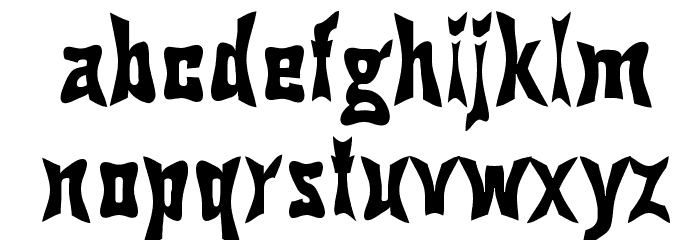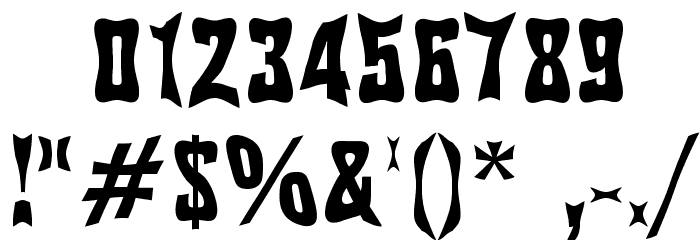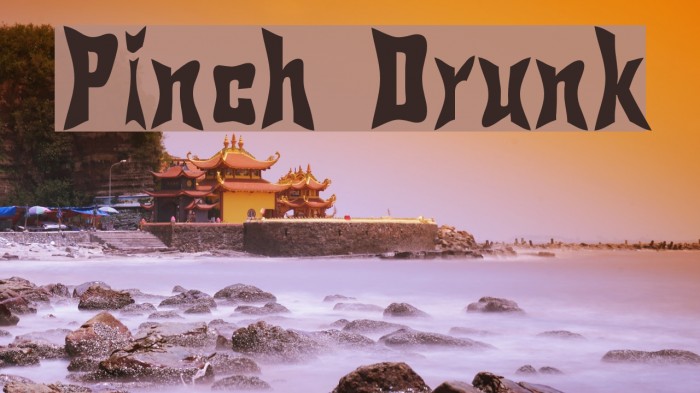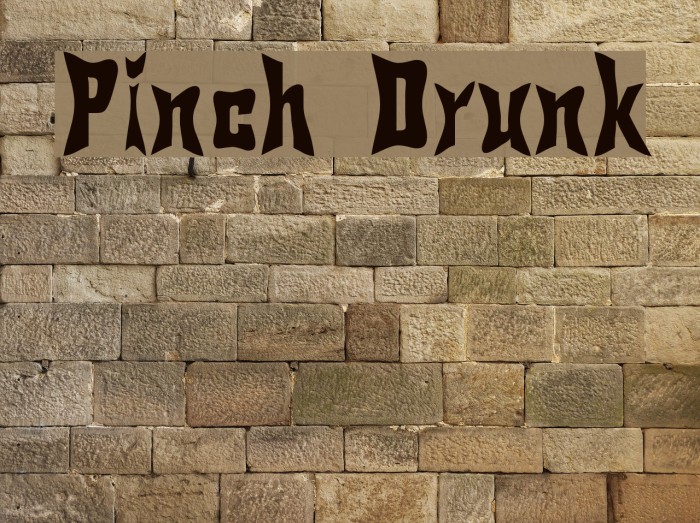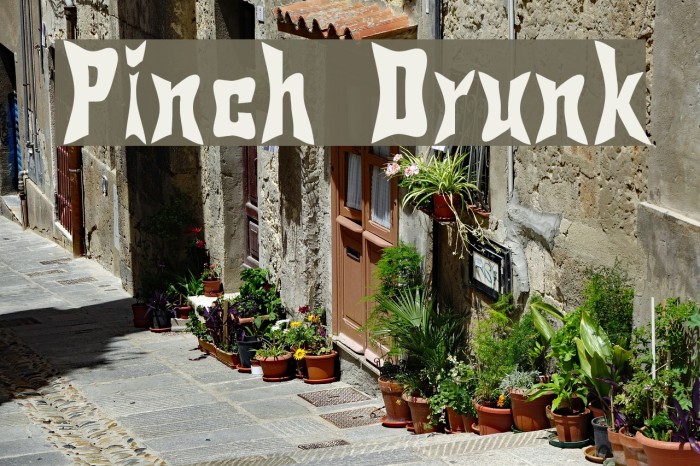
Pinch Drunk Font
This font features a bold and dynamic style with sharp, angular edges and a slightly distorted appearance, giving it a unique and eye-catching look. The characters are heavily stylized, with exaggerated serifs and varying stroke widths that create a sense of movement and energy. The uppercase and lowercase letters maintain a consistent design, while the numbers and special characters complement the overall aesthetic. This font is ideal for projects that require a strong visual impact and a touch of creativity.
A bold, angular font with a dynamic, distorted style.
- Proposed Projects: Perfect for poster designs, album covers, branding projects, and any creative work that needs a bold statement.
- Overall Style: Modern, Decorative